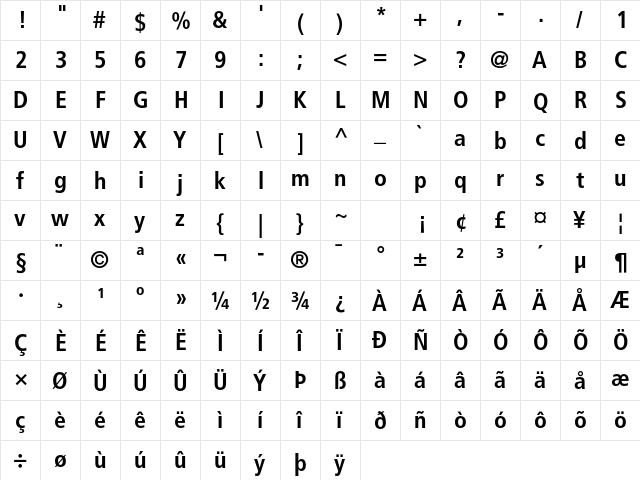
Frutiger LT Std 67 Bold Condensed
| Designer | Adrian Frutiger |
Design Context for Frutiger LT Std Typeface
Frutiger LT Std offers clean, dependable letterforms without strong stylistic allegiance, making it a practical choice for designers who need flexibility. Its bold stroke weight gives it real presence on the page. The condensed width makes it efficient for tight spaces without sacrificing legibility.